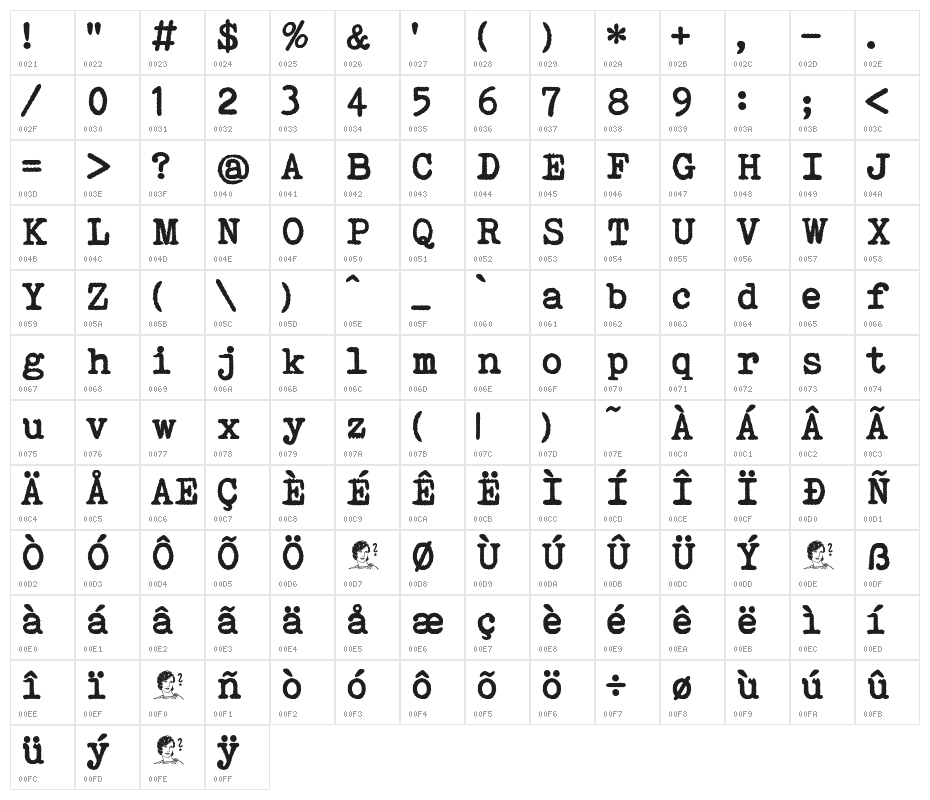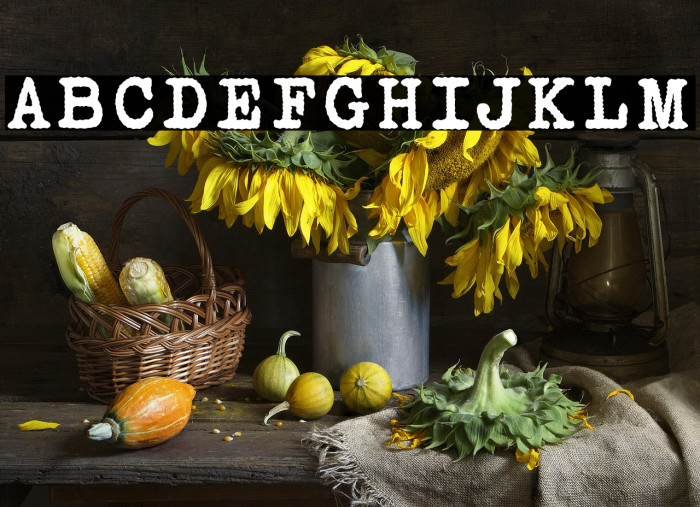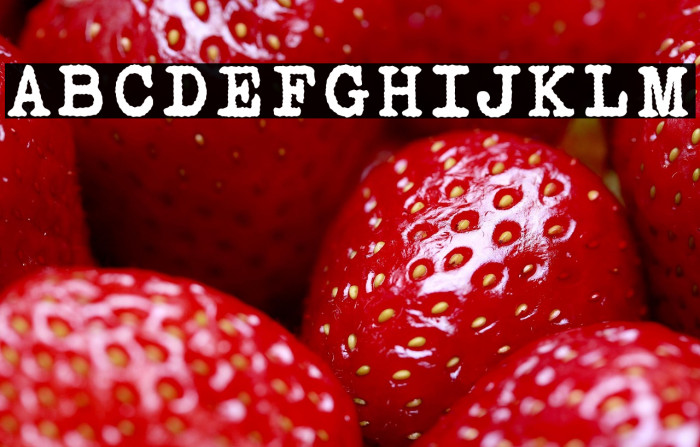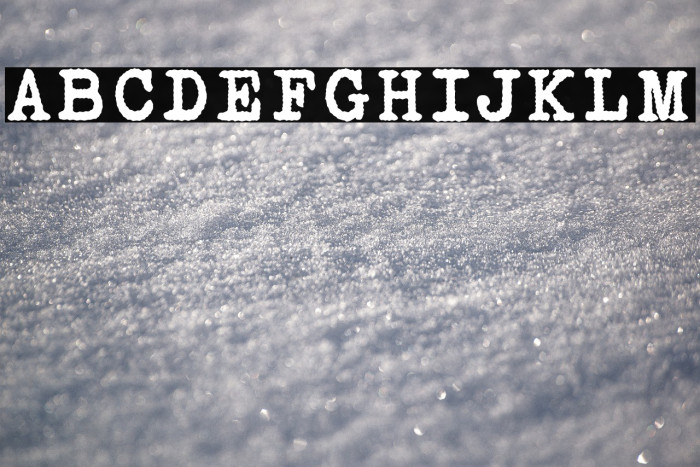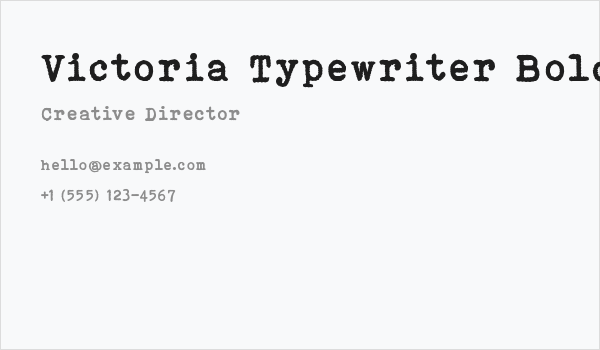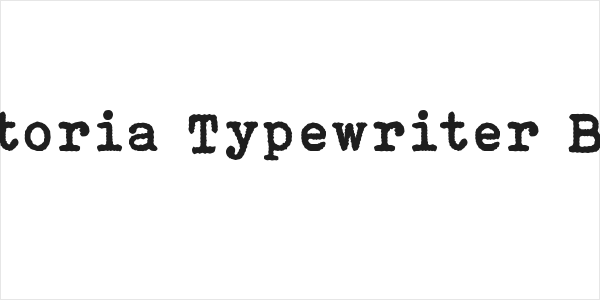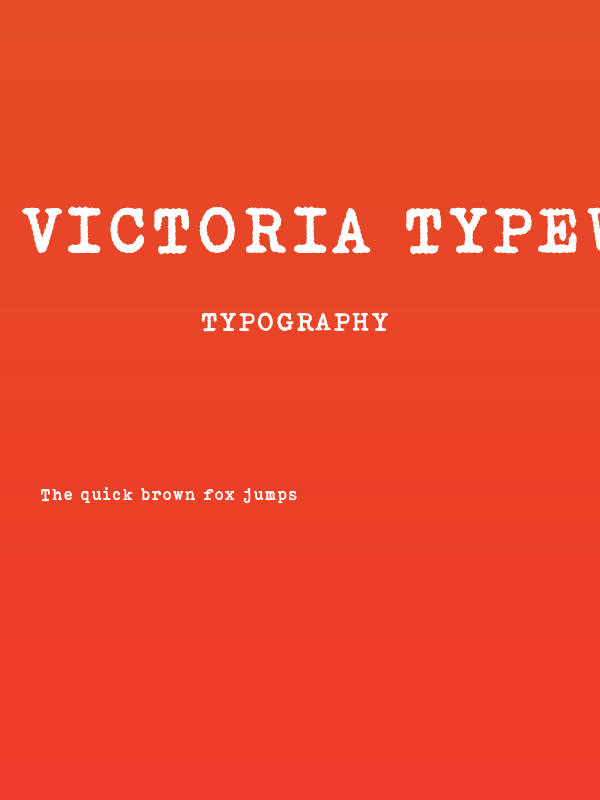
Victoria Typewriter Bold Font
Victoria Typewriter Bold Description
This font embodies the classic typewriter aesthetic, featuring bold, monospaced characters that evoke a sense of nostalgia and authenticity. Each letter is distinct and slightly irregular, mimicking the mechanical imprint of a vintage typewriter. The bold weight adds emphasis and clarity, making it suitable for both display and text purposes. The characters have a uniform width, contributing to a structured and orderly appearance. The font's design includes rounded edges and subtle imperfections, enhancing its retro charm. It is ideal for projects that require a touch of vintage flair or a connection to traditional typewriting.
A bold, monospaced typewriter-style font with a vintage feel from Uncategorized fonts.
- Font: Victoria Typewriter Bold
- Proposed Projects: Perfect for retro-themed designs, typewriter art, vintage posters, and branding that requires a nostalgic touch.
- Overall Style: Vintage